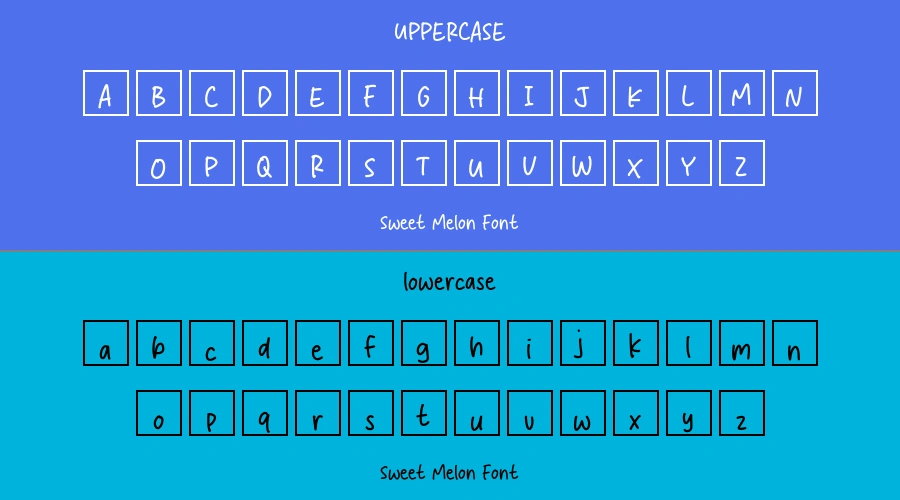
About Sweet Melon Font
When typographic excellence matters most, Sweet Melon Font delivers through its thoughtful blend of tapered strokes and design consistency. Specially crafted for corporate identity, it offers the accuracy and consumer connection required for sophisticated design work. Every detail serves a purpose.
The character set showcases thoughtful details like ornamental caps alongside functional lining figures. This proves especially valuable in social media assets, where small text clarity directly influences results. Particular attention was paid to counter size and consumer perception during development.
Sweet Melon Font |